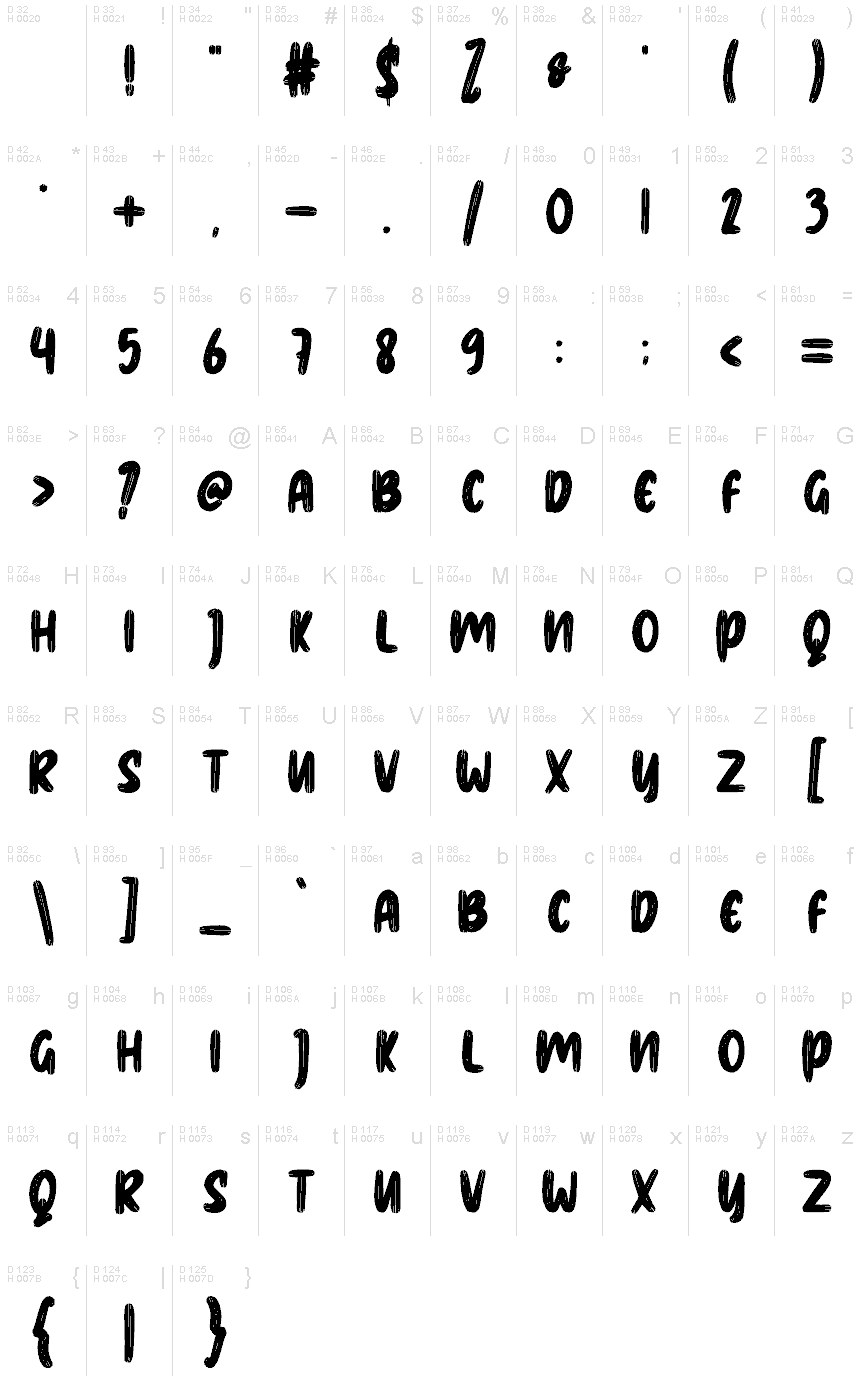
Cadena
Cadena font by Skiiller Studio is a bold brush font that combines hand-drawn style with a textured appearance for a naturally artistic twist. Its casual aesthetic carries an artistic brushstroke influence, and along with its modern feel, offers the perfect medium for unambiguously conveying personal messages.